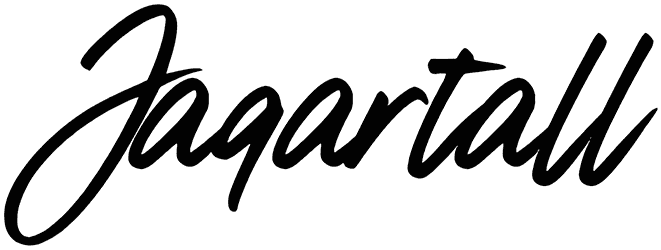
Jaqartall Font
There are countless designs that you can adorn with a modern handwritten font like this one and make them cool. Also, when you have all the characters, it will be easier to benefit from a letterform, and this script font has them all. Put the Jaqartall font on your novel projects, such as a casual stationery design, and make them unique.